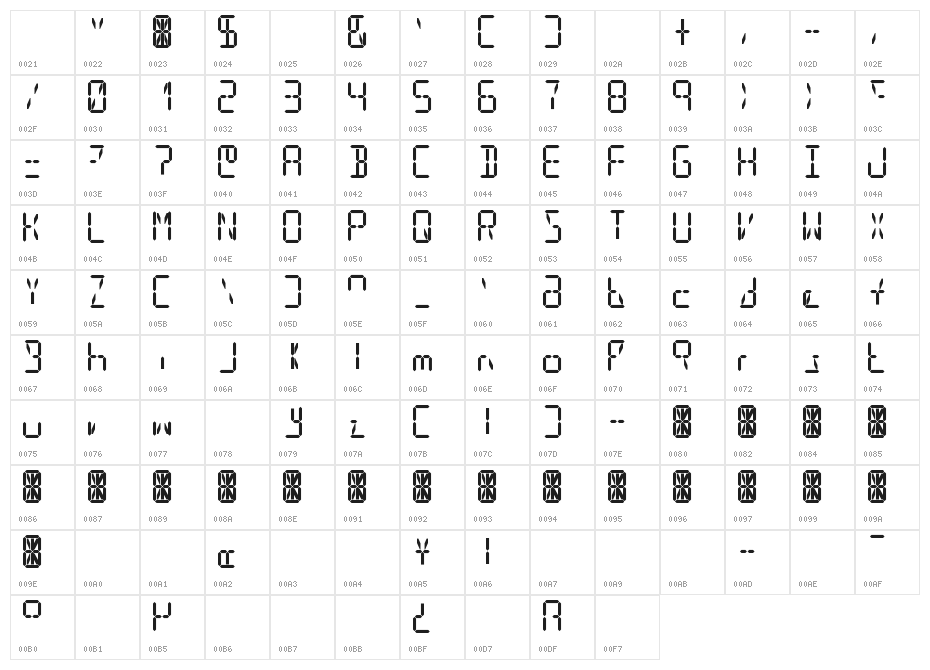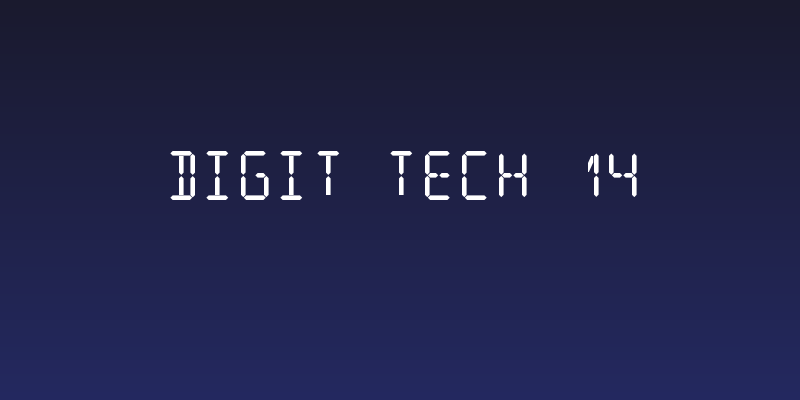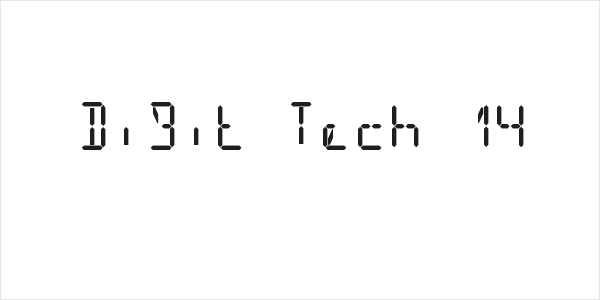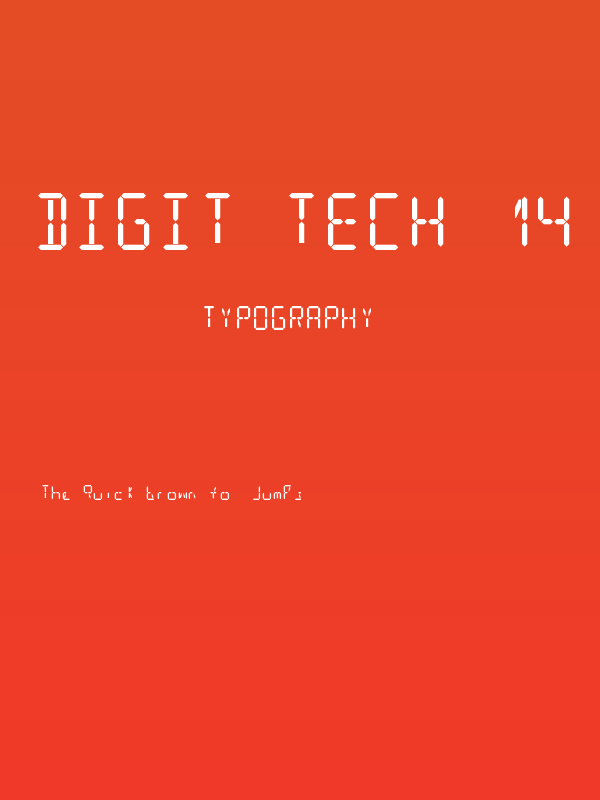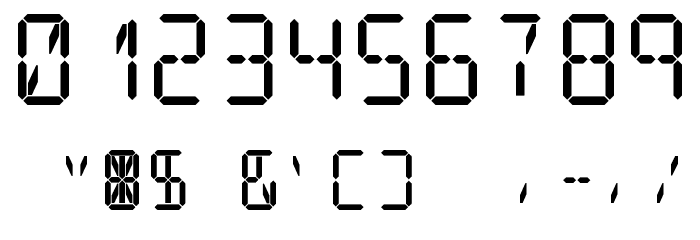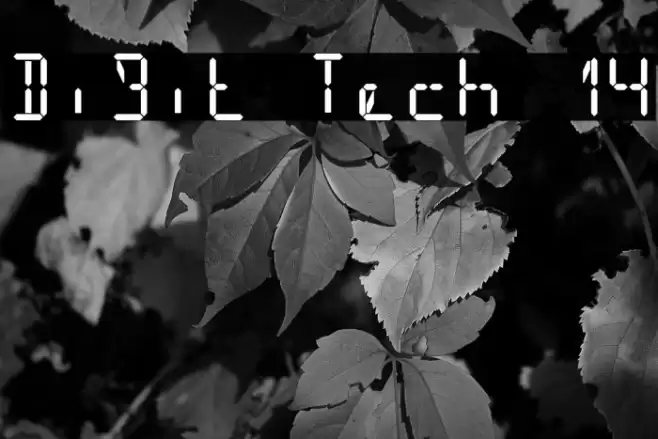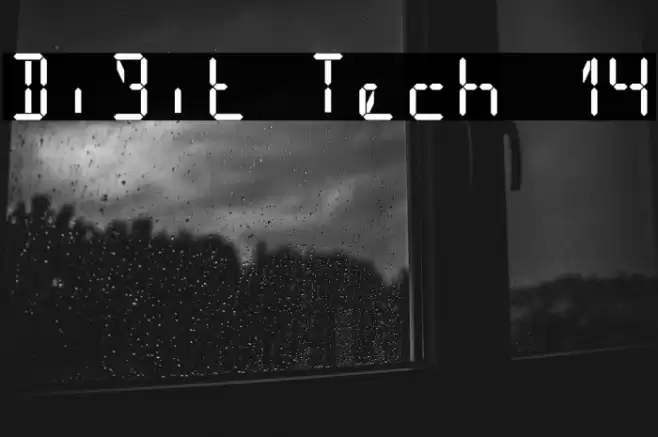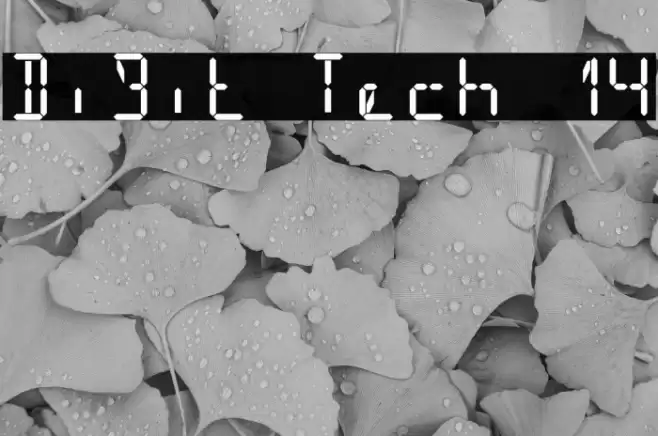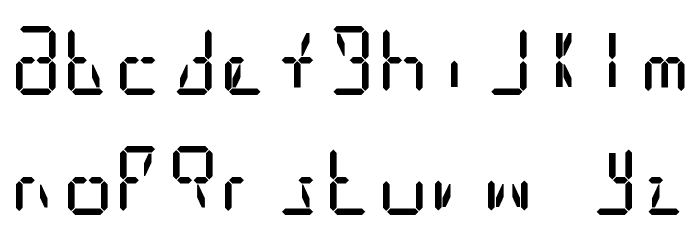
Digit Tech 14 Font
Digit Tech 14 Description
This font features a digital, tech-inspired design reminiscent of classic LED displays. Each character is constructed with a series of segmented lines, creating a geometric and futuristic appearance. The uppercase and lowercase letters maintain a consistent style, with sharp angles and a uniform line thickness. Numbers and special characters follow the same segmented pattern, enhancing the cohesive digital aesthetic. The font's unique style makes it ideal for projects that require a modern, technological feel.
| Use Case | Headlines, Logos |
| Proposed Projects | Ideal for digital displays, tech-themed posters, video game interfaces, and futuristic branding. |